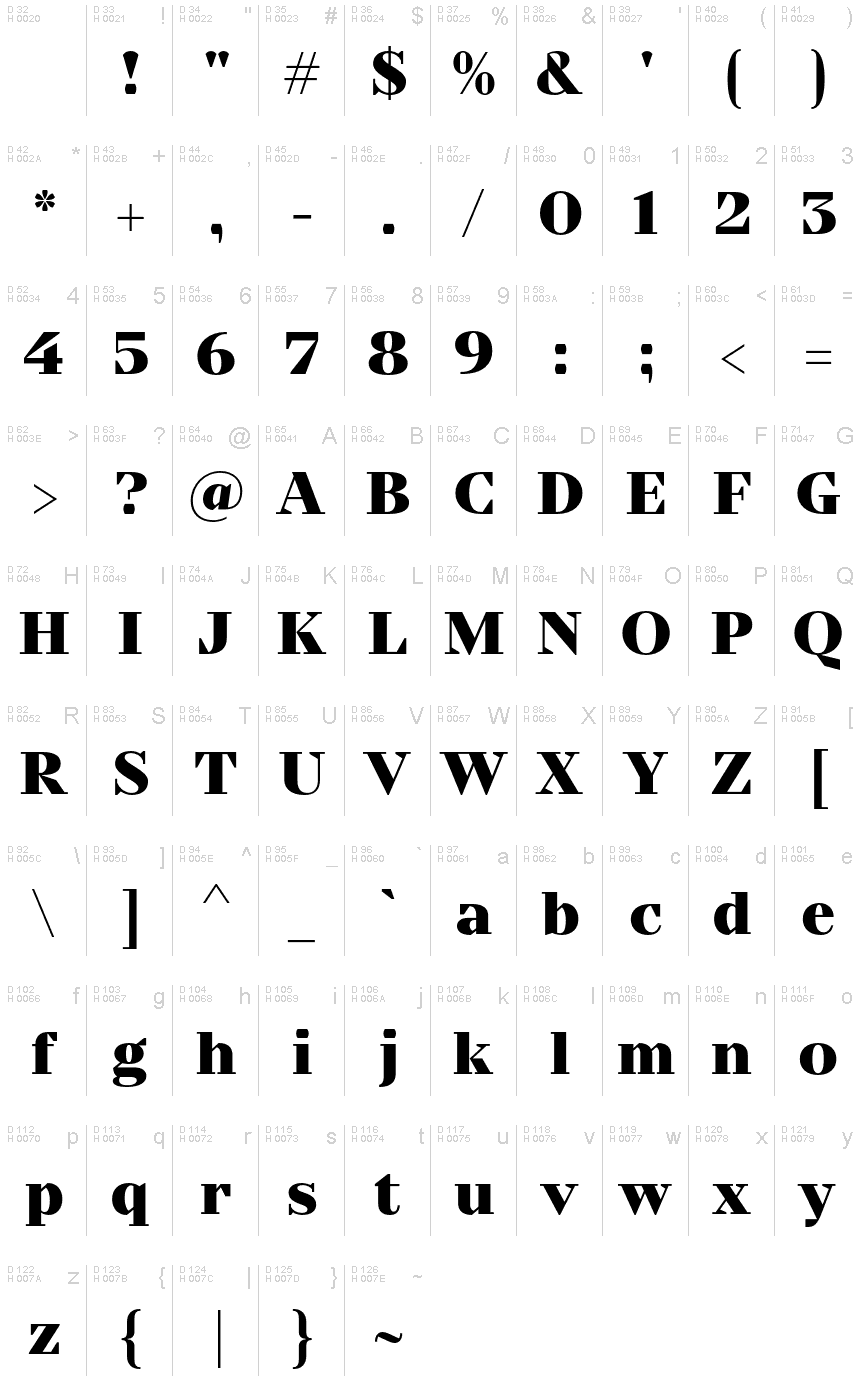
TT Nooks Black is a stunning freeform serif font that combines the best of both worlds - classic elegance and modern minimalism. This ultra-bold semi-expanded font is perfect for creating attention-grabbing headlines, logos, and branding materials. Its unique style adds a touch of sophistication to any project, from fashion magazines to luxury brands. TT Nooks Black is also suitable for use in editorial design, book covers, packaging design, and more. With its versatile nature and exquisite design, TT Nooks Black is guaranteed to elevate your creative projects to the next level.
TT Nooks Trial Black